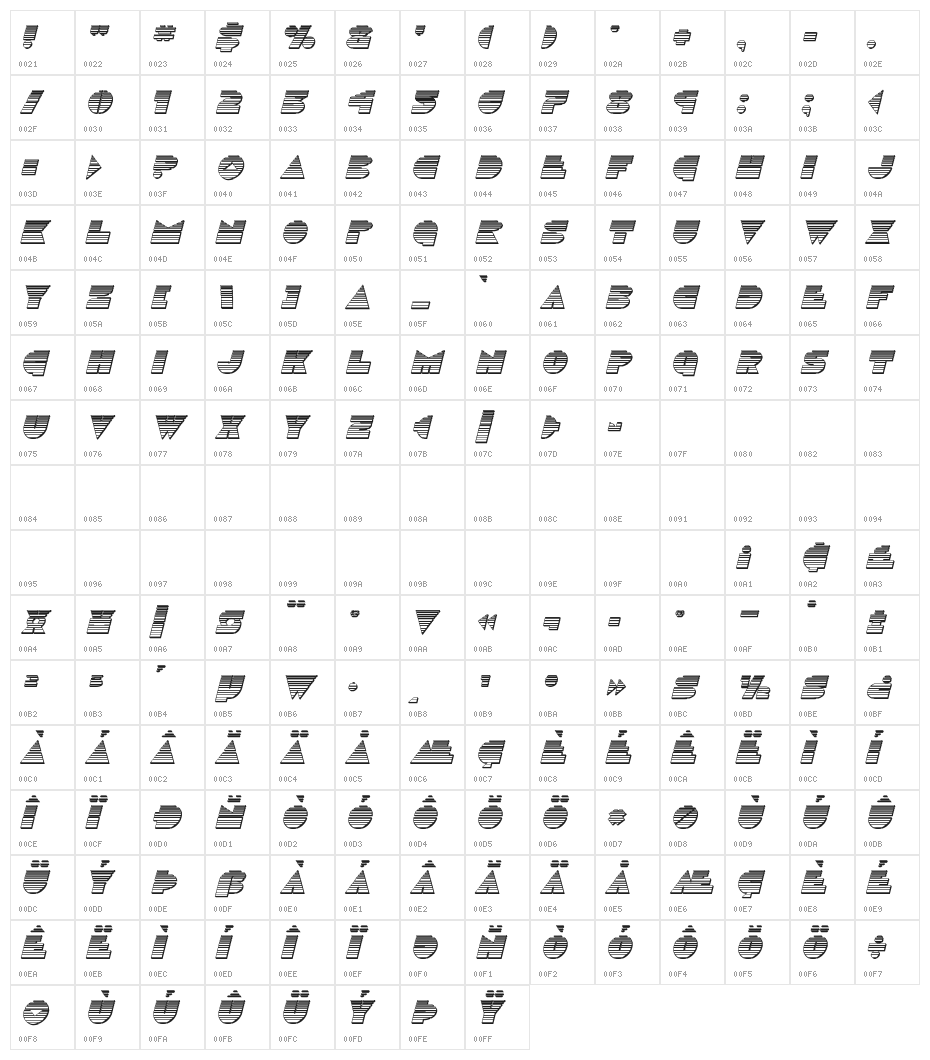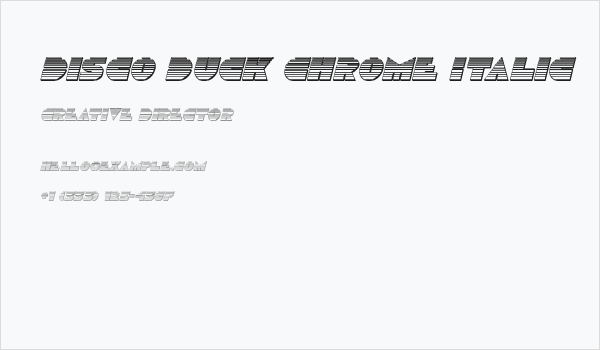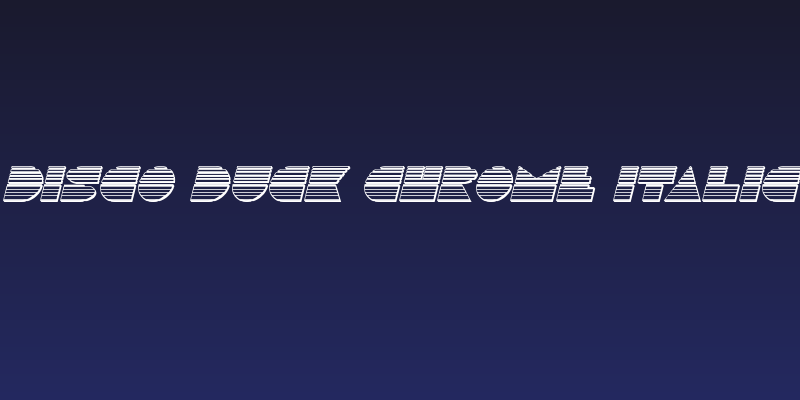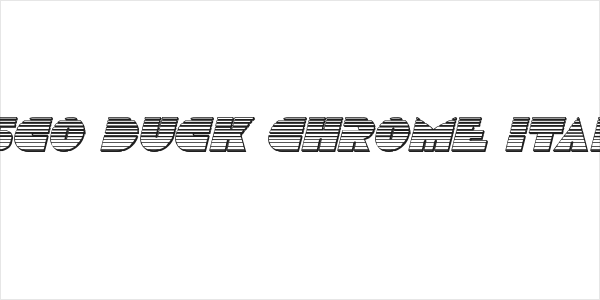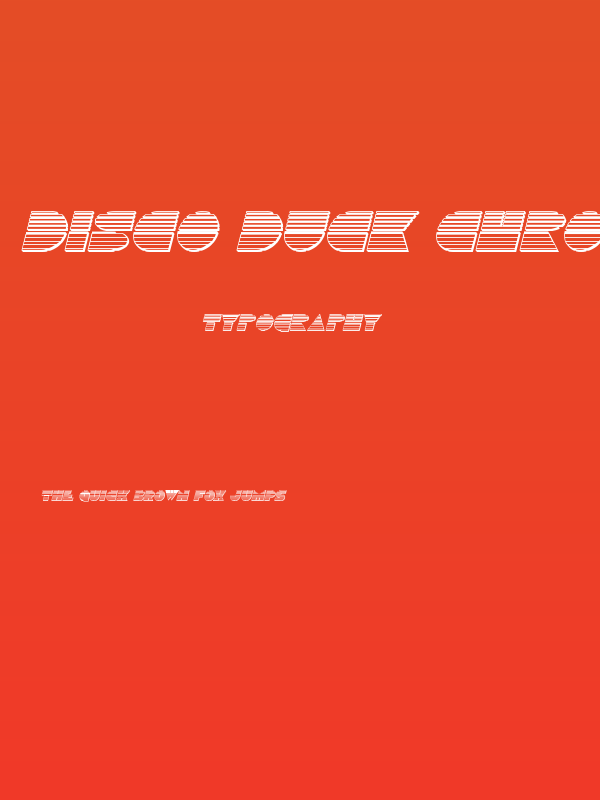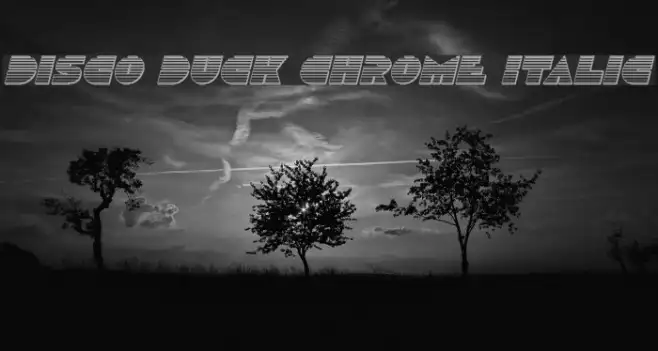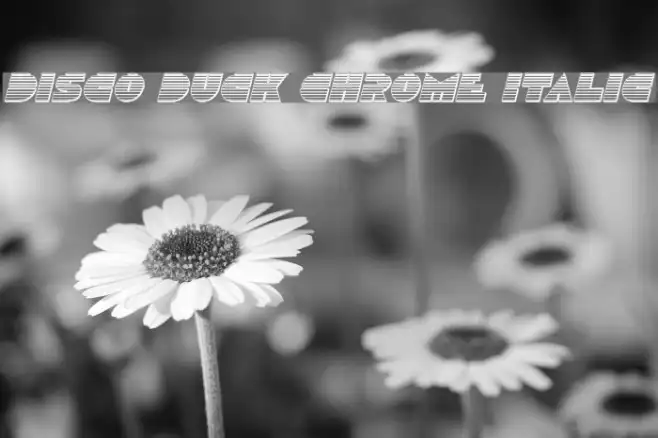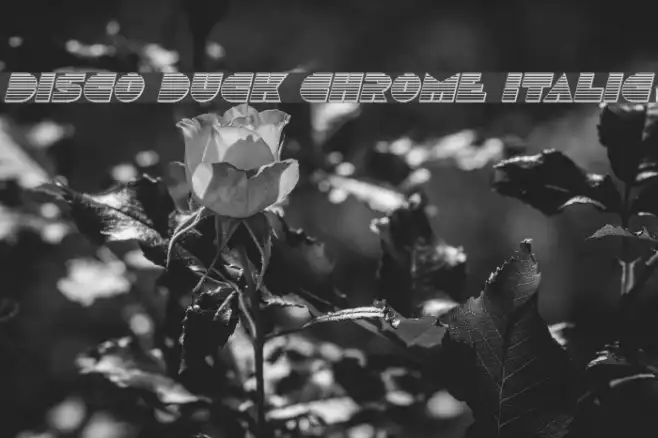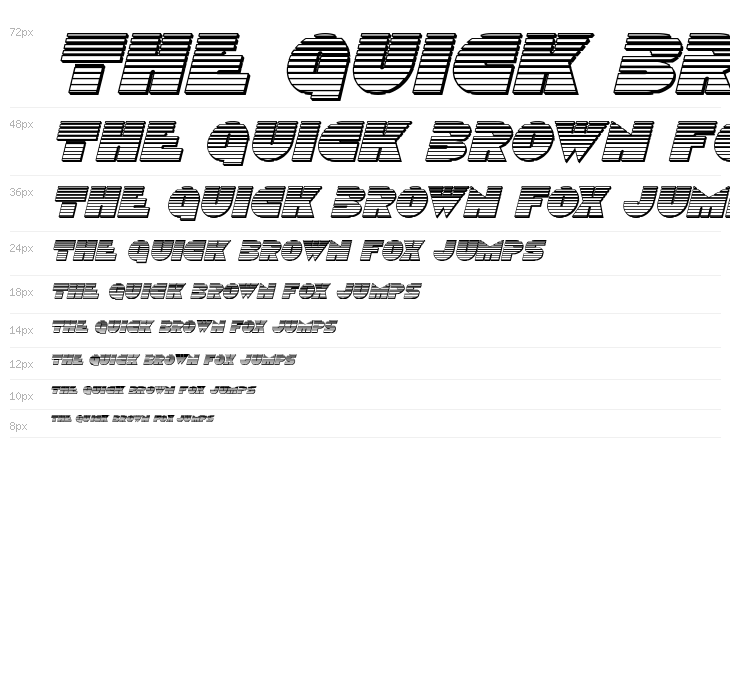
Disco Duck Chrome Italic Font
Disco Duck Chrome Italic Description
This font features a bold, decorative style with a distinct retro vibe. The characters are designed with horizontal stripes that give a sense of movement and energy, reminiscent of disco-era aesthetics. The italic slant adds a dynamic quality, enhancing the playful and vibrant feel. Each letter and number is uniquely crafted to maintain readability while showcasing a strong visual impact. The special characters are equally stylized, maintaining the cohesive look of the font. This font is perfect for projects that require a fun, energetic, and eye-catching typeface.
| Overall Style | Retro, Decorative |
| Proposed Projects | Ideal for music event posters, retro-themed branding, party invitations, and eye-catching headlines. |